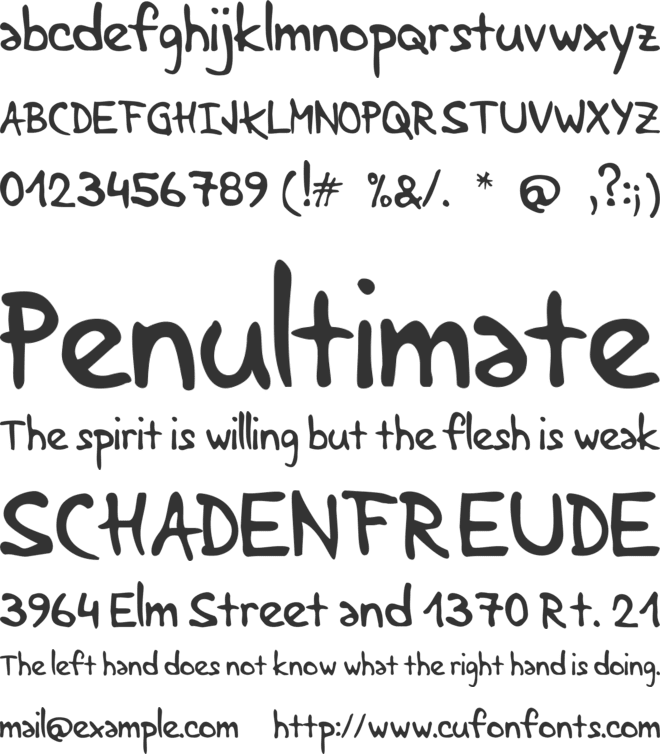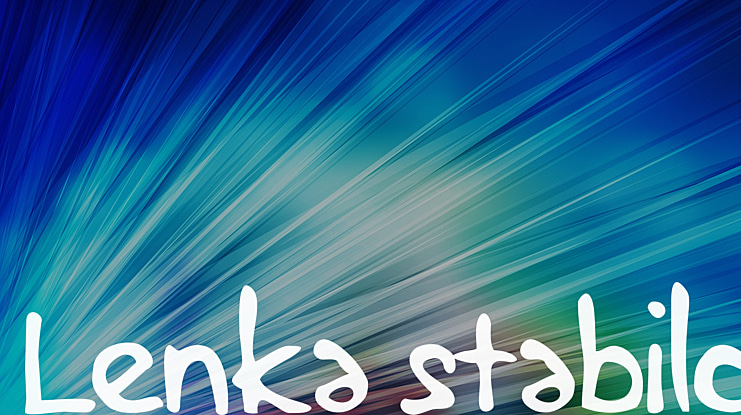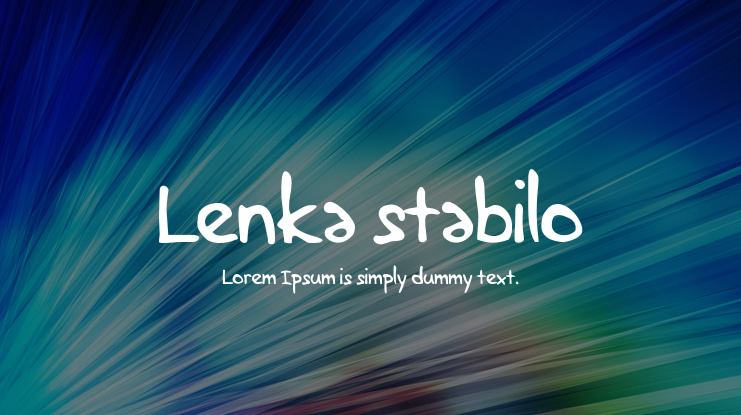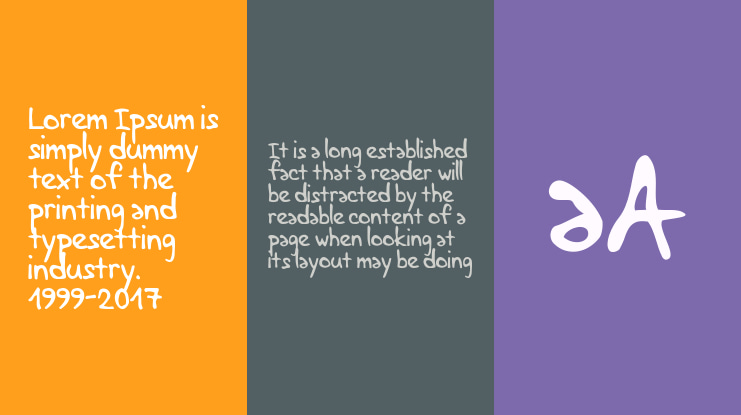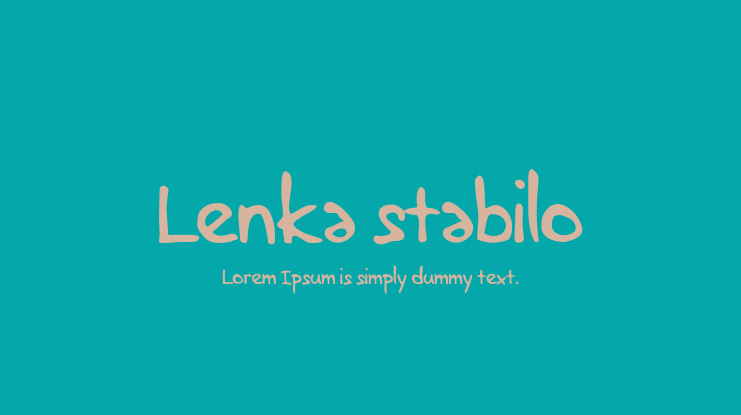
Lenka stabilo Font
Please note: Lenka stabilo is a first bit of hopefully bigger family and still kind of in process of making. It now includes the basic character set in upper and lower case + czech diacritics I sincerely hope to get more done soon. It is carefully based on handwritten characters so I wanted to ask everybody who will ever want to use this: enjoy and please be considerate. Also if you use Lenka, please send me your work so I can see how the font is doing :) as well as the city you live in, so I can map a bit how the work spreads. Thanks! xxx Lenka pencil, Lenka ink and Lenka marker hopefully soon to come.